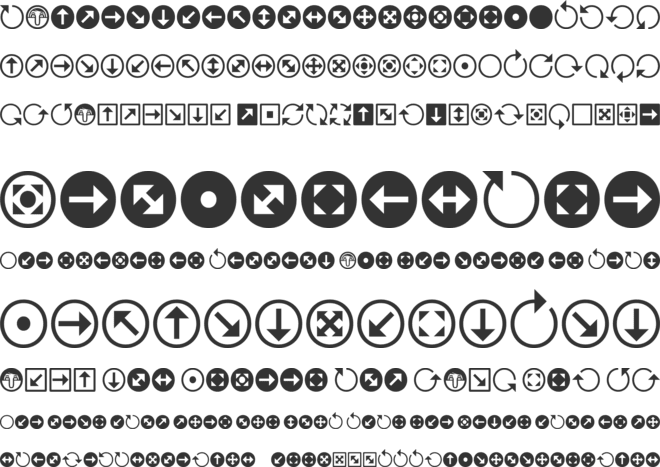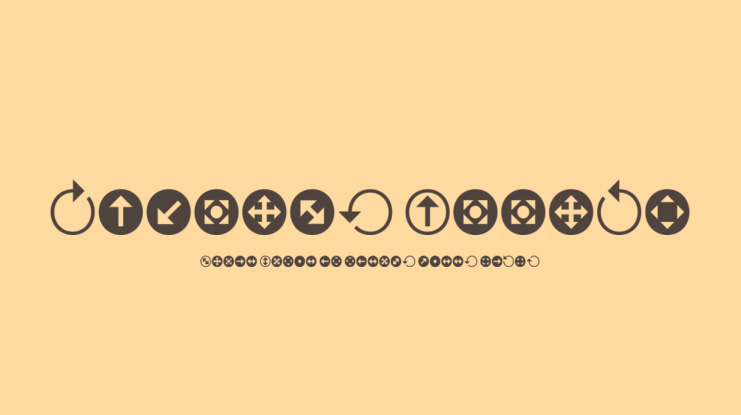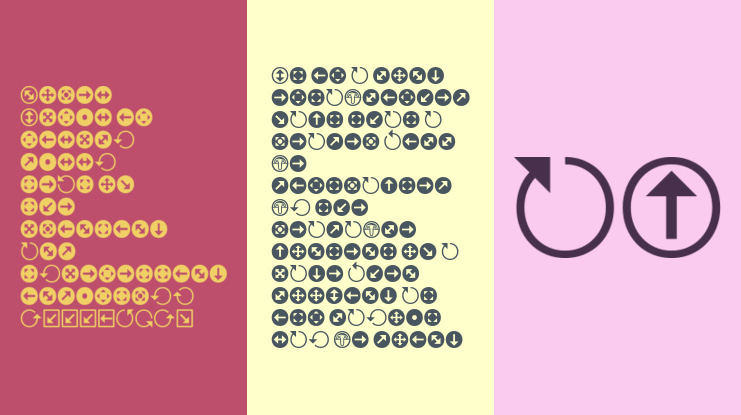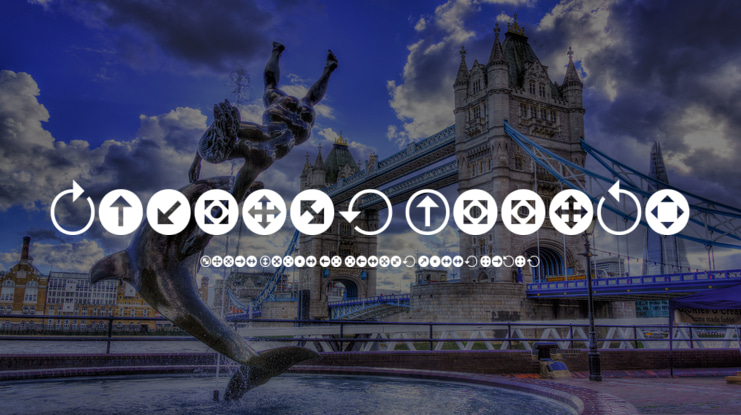
Uchrony Arrows Font Family
Uchrony is a condensed proportion slab serif typeface. The font family is made up of 3 styles, Roman, Small Caps & Italics, with 6 weights each (Extra Light, Light, Regular, Medium, Bold and Extra Bold).
Uchrony Arrows It is a extra style that is complemented by the Uchrony Slab typeface, to create attractive designs, signage, etc.
It has 239 arrows of different styles...